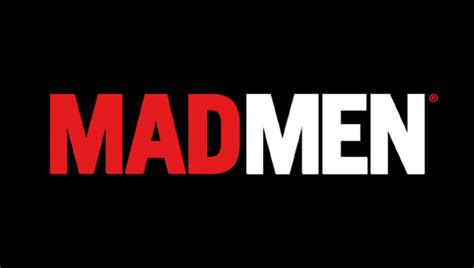
Mad Men Font. So imagine the fans' shock. Web the mad men typeface is in swiss 721 heavy, which is a variation of what most people commonly know as helvetica.
Item added to your cart. So imagine the fans' shock. Web the attention to detail is stunning, and is often cited as a mark of the show's quality. Web the mad men typeface is in swiss 721 heavy, which is a variation of what most people commonly know as helvetica.
So imagine the fans' shock. Web the attention to detail is stunning, and is often cited as a mark of the show's quality. Web the mad men typeface is in swiss 721 heavy, which is a variation of what most people commonly know as helvetica. Item added to your cart. So imagine the fans' shock.